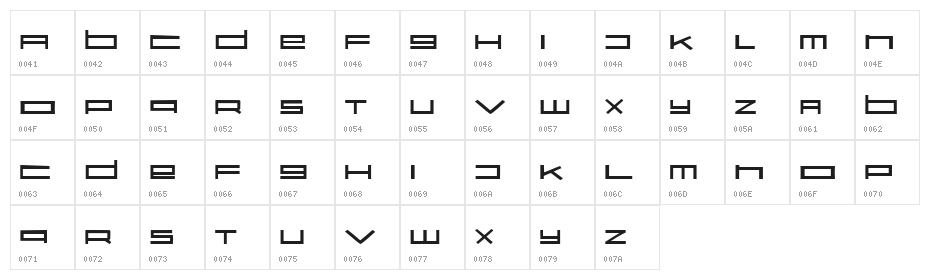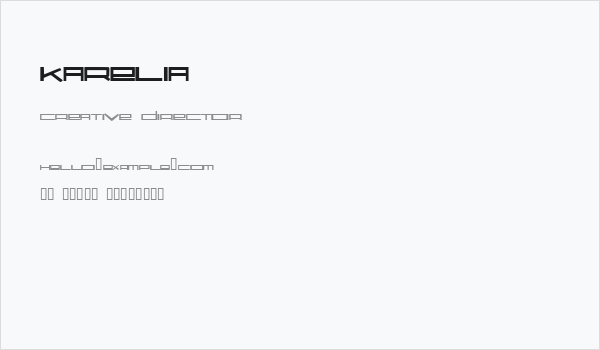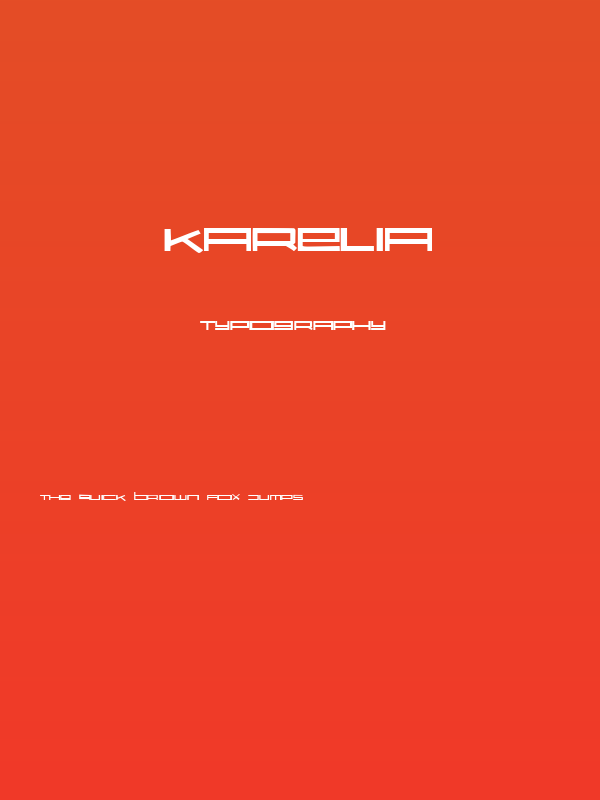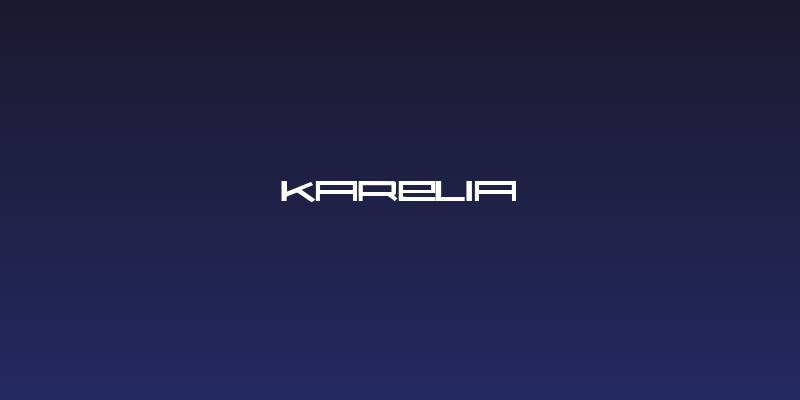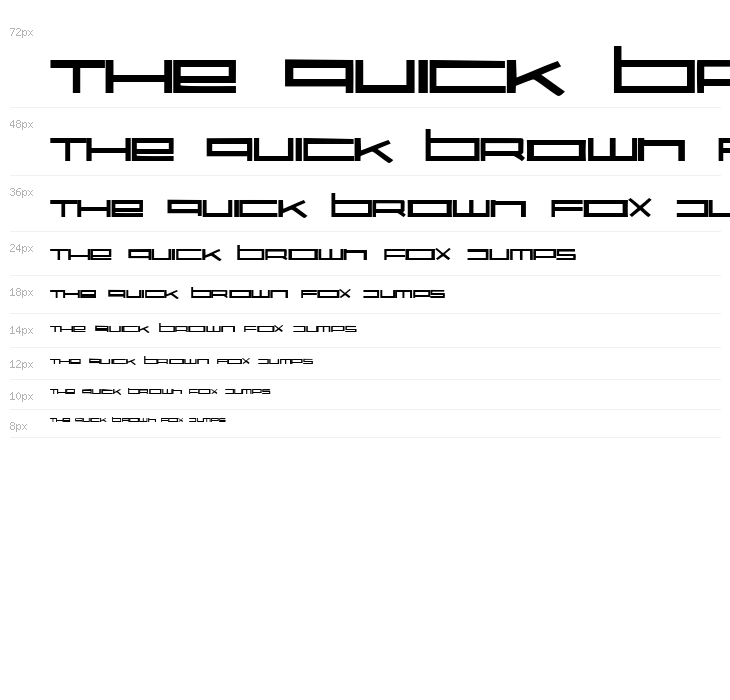
Karelia Font
Karelia Description
This font features a futuristic and geometric design with a strong emphasis on angular lines and sharp edges. The characters are constructed with a consistent stroke width, giving a uniform appearance across all letters and numbers. The uppercase and lowercase letters share a similar structure, maintaining a cohesive look. The numerals are designed to match the angular style of the alphabet, ensuring visual harmony. Special characters are included, following the same geometric theme. This font's unique style makes it suitable for modern and tech-oriented projects.
| Proposed Projects | Ideal for technology branding, sci-fi themed designs, video game interfaces, and modern advertising. |